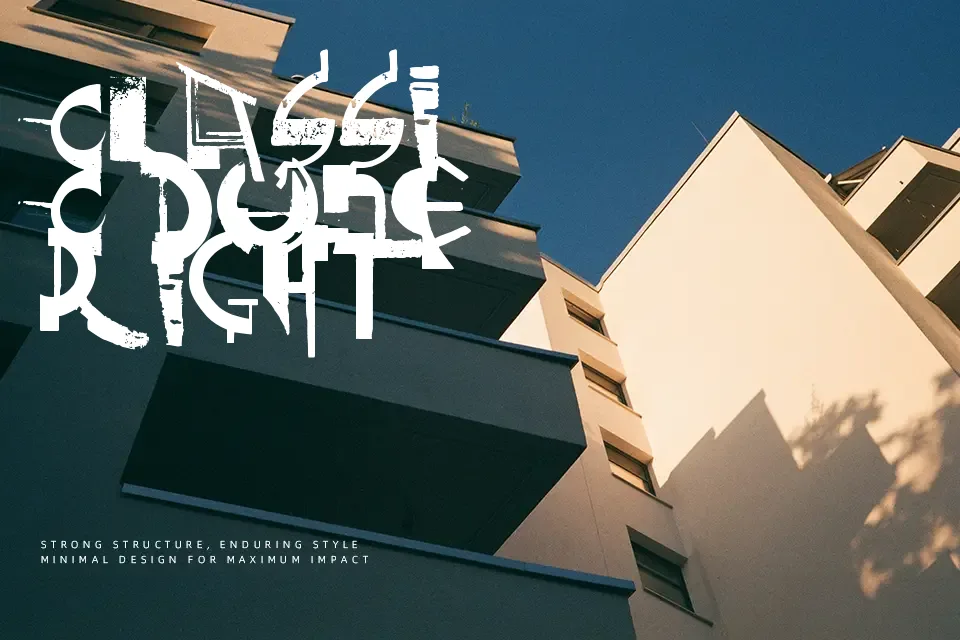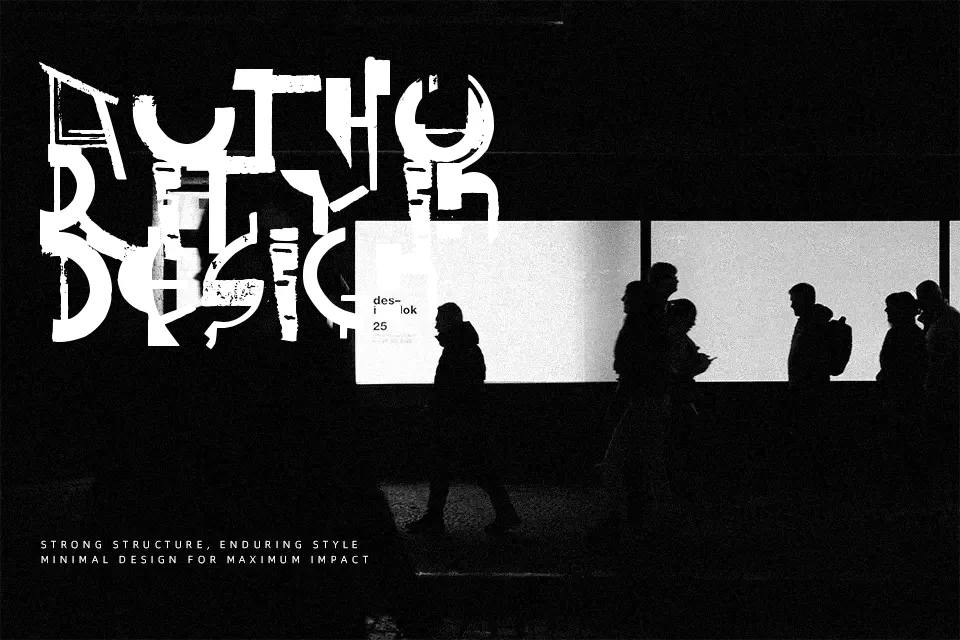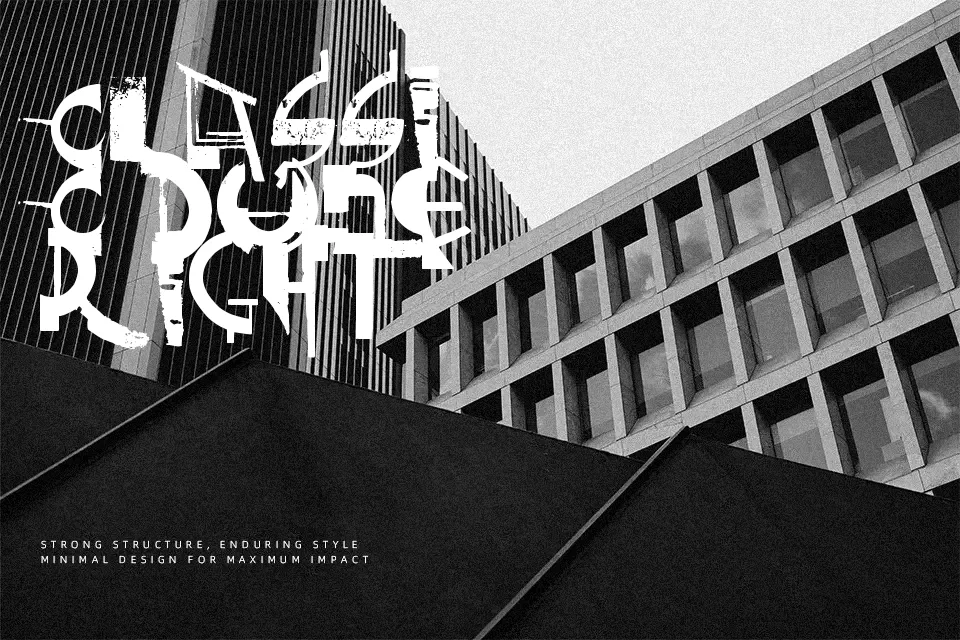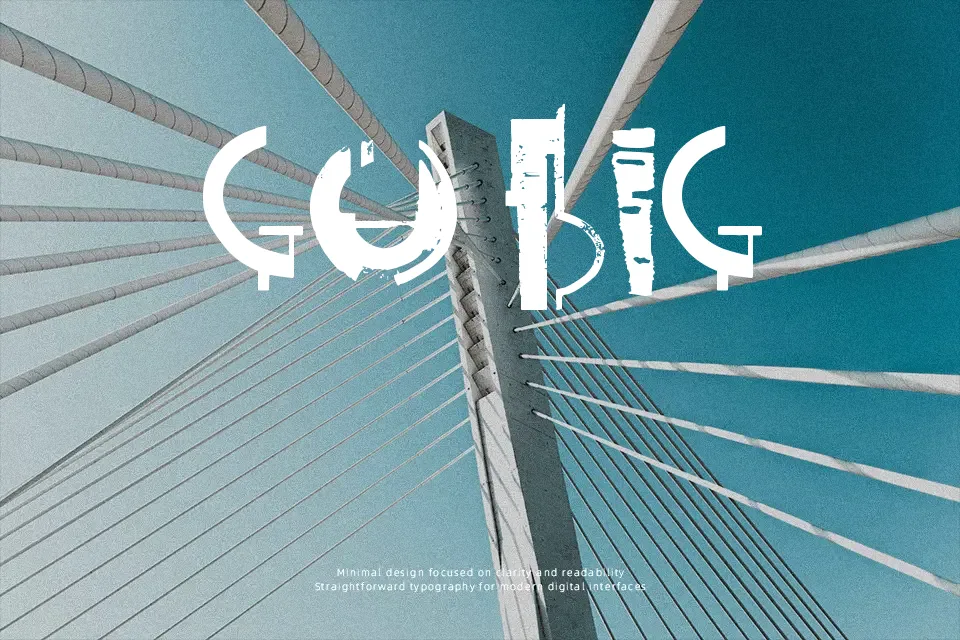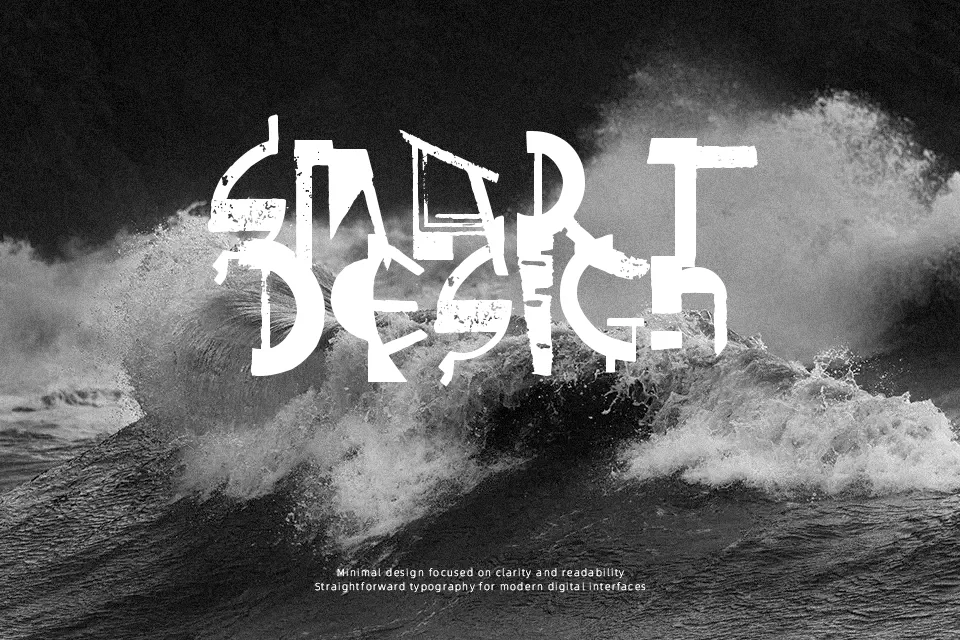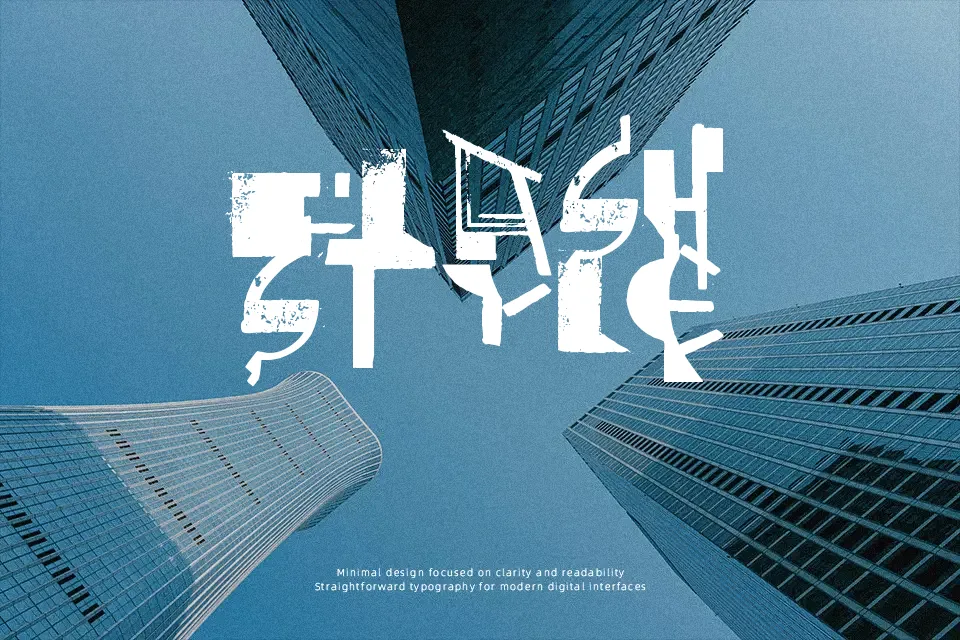
Painter Font
The visual structure of Painter Font relies on heavy, textured strokes that mimic the uneven ink distribution of a physical paintbrush. Its bold, energetic letterforms feature rough terminals and visible bristle marks, giving the typography a raw, organic rhythm. Because the character spacing is somewhat irregular and the internal counters are partially filled by the brush effect, this typeface performs best when displayed at larger sizes where its artistic details can truly shine. A short poster headline or street-style apparel graphic benefits greatly from its dynamic impact. However, the dense forms reduce comfort during extended reading, making it far less suitable for dense paragraphs. The rough styling ultimately sacrifices small-scale clarity for maximum decorative presence.
street apparel graphics, bold event posters, urban branding, creative packaging
long paragraph text, small interface labels, dense editorial layouts
Perfect for branding, headline, and packaging, with a artistic and brush style.